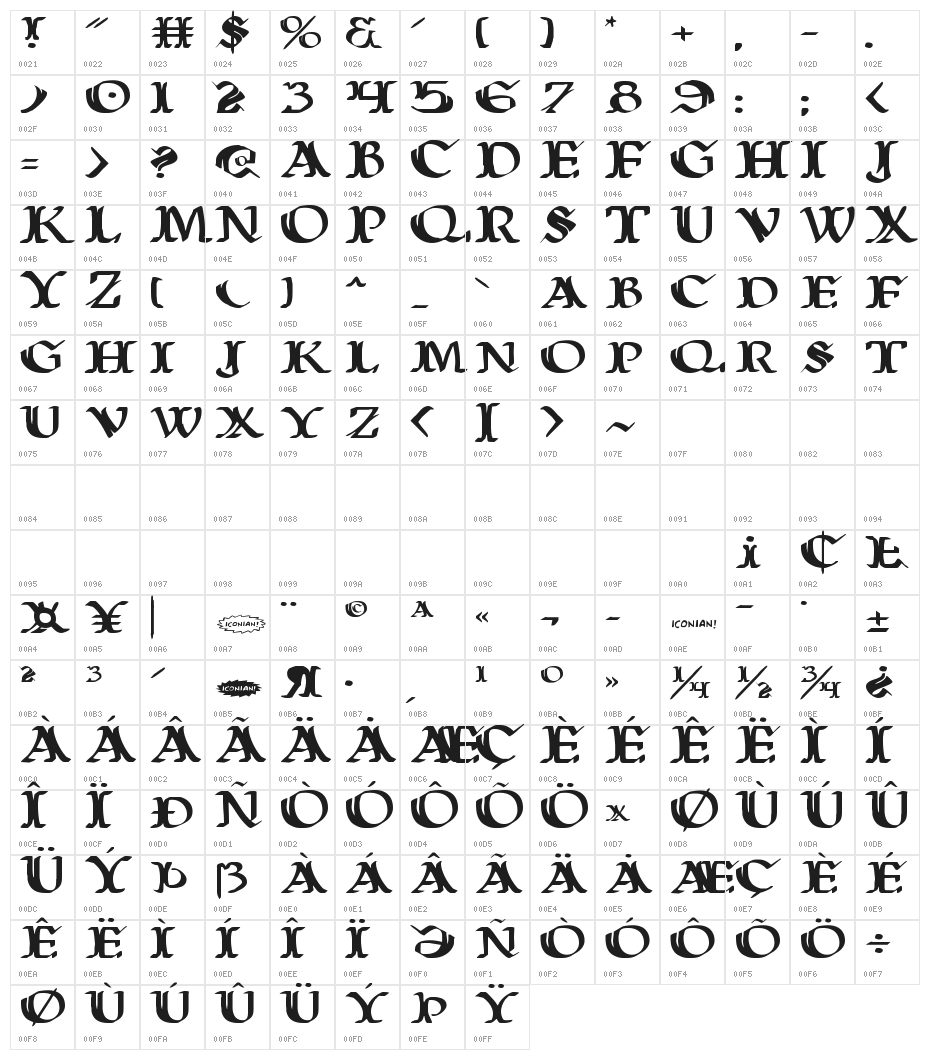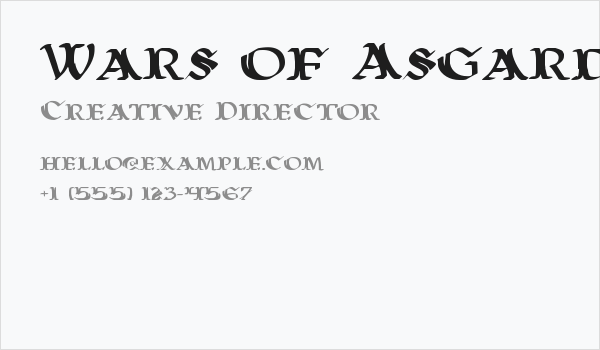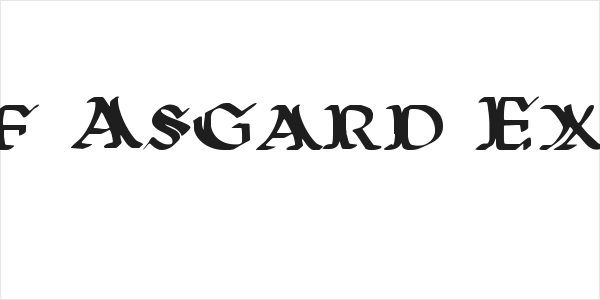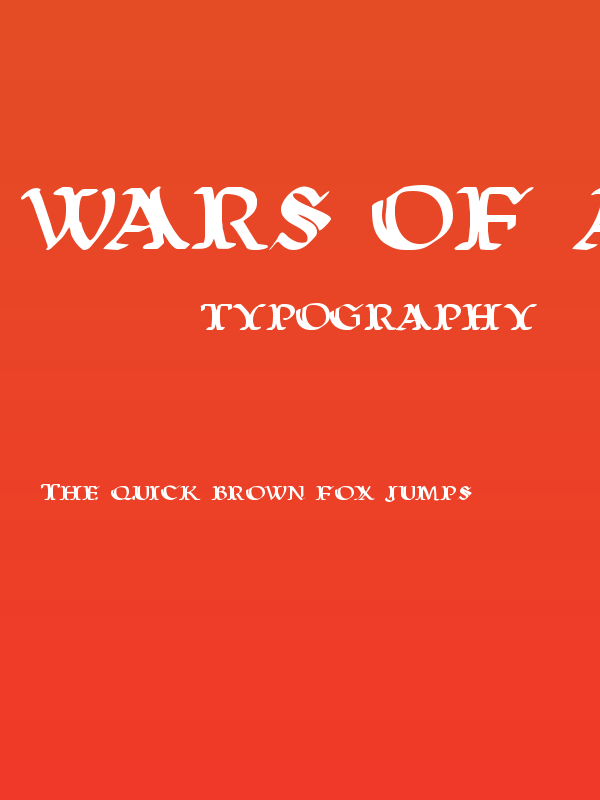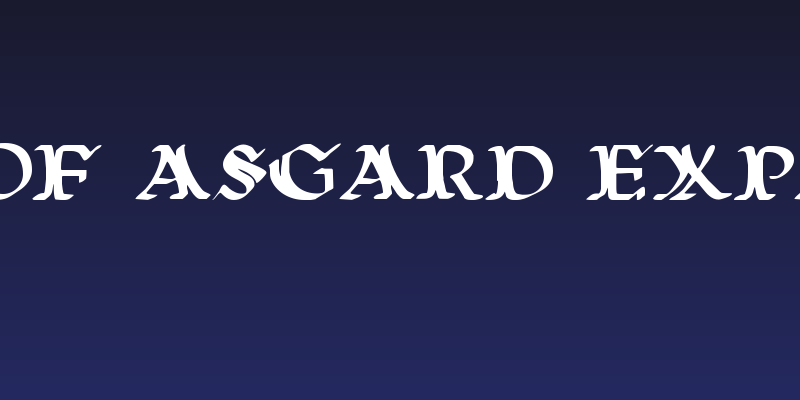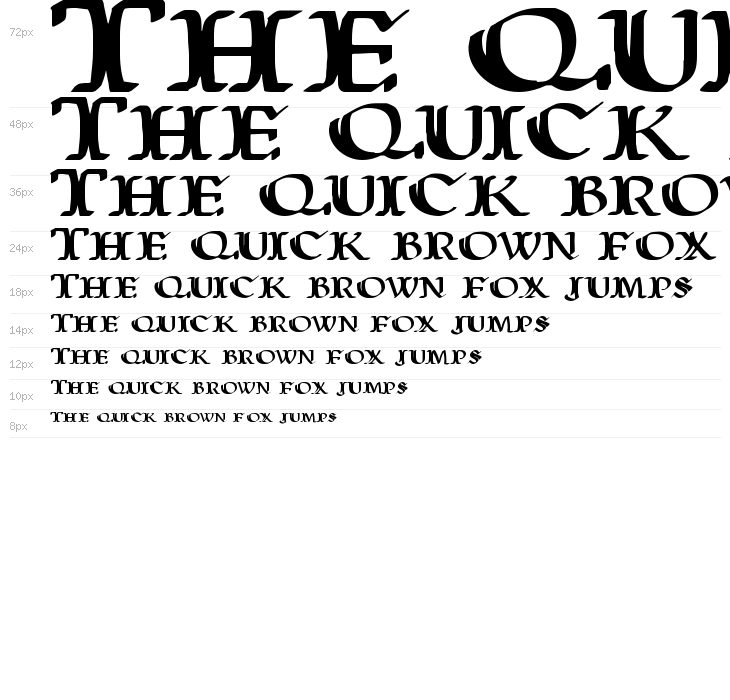
Wars of Asgard Expanded Font
Wars of Asgard Expanded Description
This font features a bold and dramatic style with a strong medieval influence, characterized by its sharp, angular serifs and intricate detailing. The uppercase letters are particularly striking, with a sense of grandeur and authority, while the lowercase letters maintain a consistent style that complements the uppercase. The numbers and special characters are equally ornate, making them stand out in any design. This font is perfect for projects that require a touch of historical or fantasy elements, offering a unique and eye-catching aesthetic.
| Overall Style | Medieval, Fantasy |
| Proposed Projects | Ideal for fantasy book covers, historical-themed posters, video game titles, and branding for medieval or fantasy-related products. |